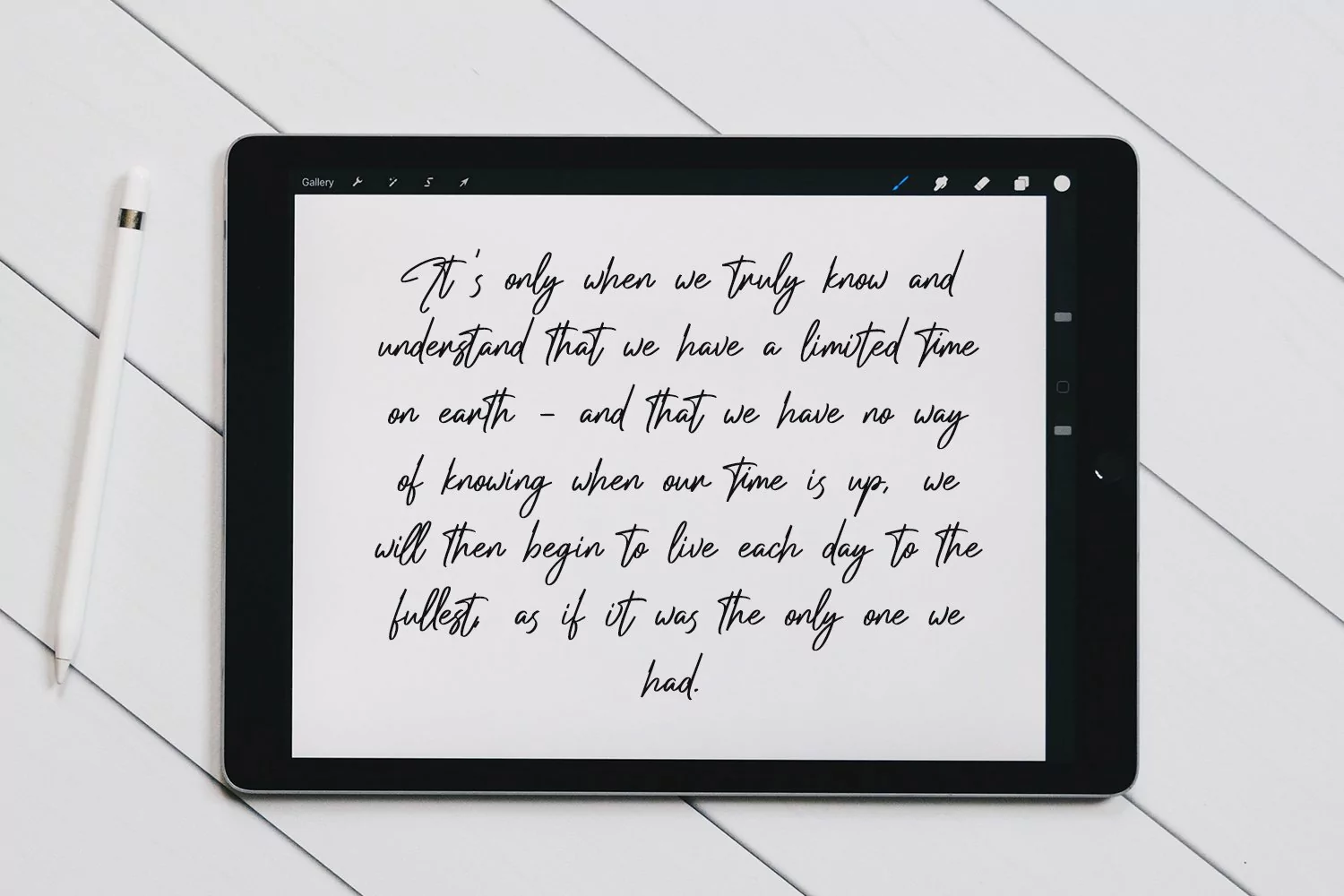
Jolleylung is a signature font, with a contrast felt-tip stroke, slant and fun character. It has Opentype features ligatures of character, To give you an extra creative work. Jolleylung signature font support multilingual more than 100+ language. This font is good for logo design, Social media, Movie Titles, Books Titles, a short text even a long text letter and good for your secondary text font with sans or serif. Make a stunning work with Jolleylung font.